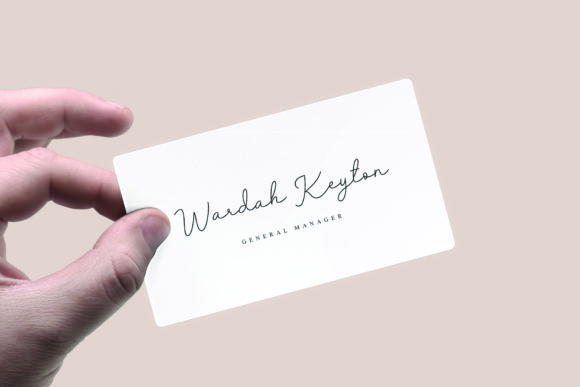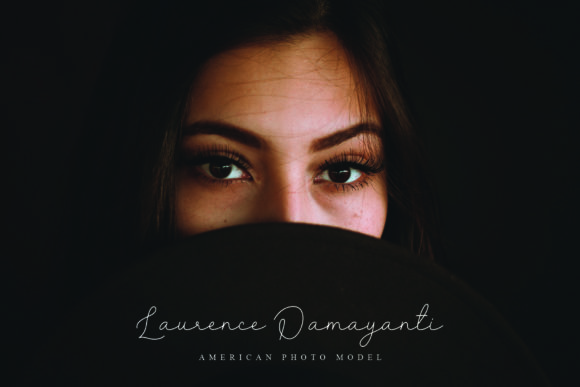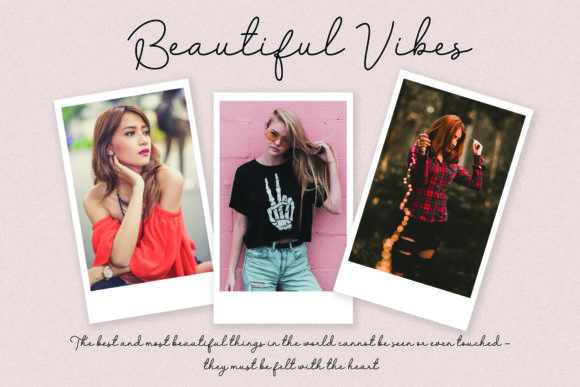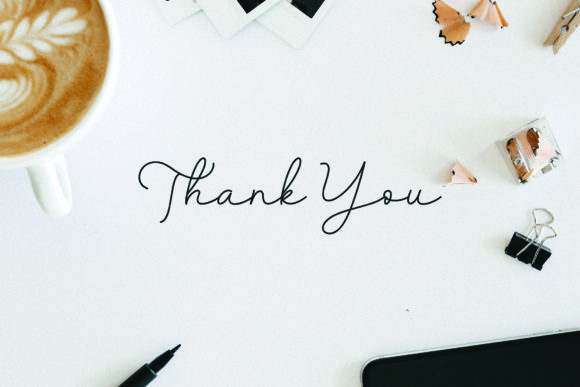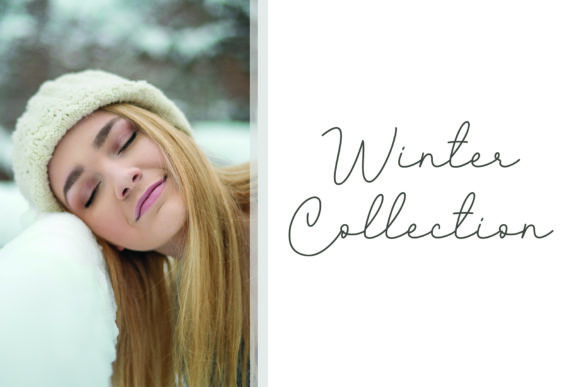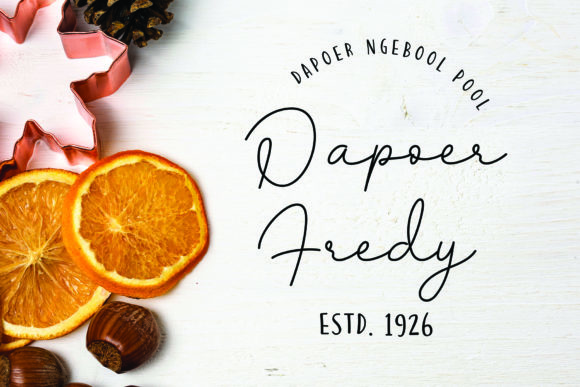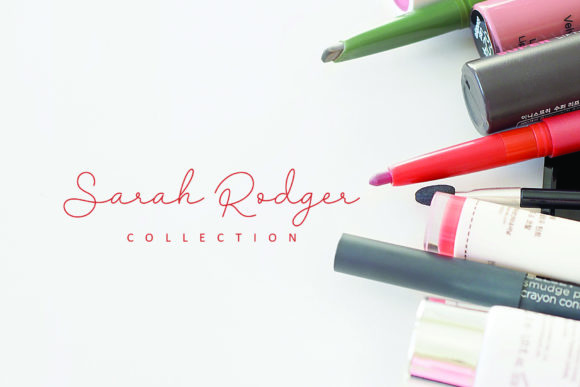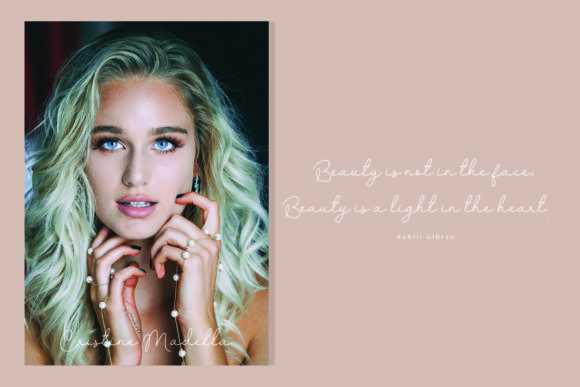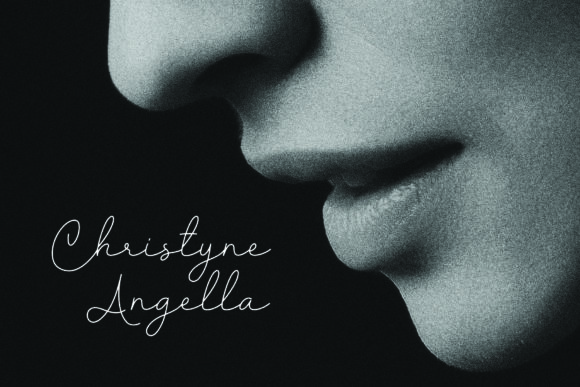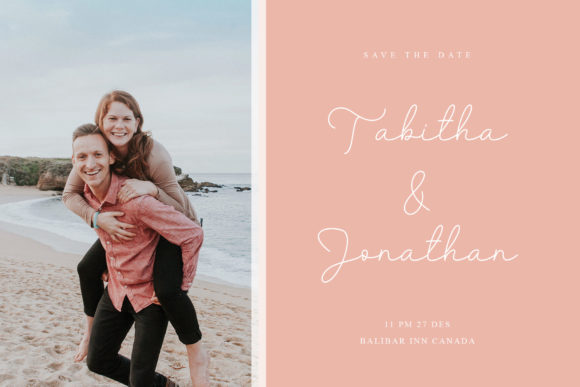
HomeScript FontsHimalaya Font Script Fonts Himalaya Font FacebookXPinterestWhatsApp Himalaya Font Poster 2 Himalaya Font Poster 3 Himalaya Font Poster 4 Himalaya Font Poster 5 Himalaya Font Poster 6 Himalaya Font Poster 7 Himalaya Font Poster 8 Himalaya Font Poster 9 Himalaya Font Poster 10 Himalaya Font Poster 11 Himalaya Font Poster 12 Himalaya Font Poster 13 About Himalaya Font Himalaya is an extremely elegant script with a smooth approach to lettering. DOWNLOAD NOW People also explored Little Mermaid Monogram Font Hovalik Font Dandelion Font Rainbow Font Milk Candy Font Karepe Fx Font Cottage Urban Streets Flyer and Poster Mock-ups Bugan Script Font 403 0 TagsHimalaya Font Previous articleSweet Heart FontNext articleKuproy Font LEAVE A REPLY Cancel reply Comment: Please enter your comment! Name:* Please enter your name here Email:* You have entered an incorrect email address! Please enter your email address here Website: Save my name, email, and website in this browser for the next time I comment. Personal Use Free Bolt Electric Personal Use Free Read more about this font Jellia Personal Use Free Read more about this font Coffete Personal Use Free Read more about this font Mika Personal Use Free Read more about this font BLOG To increase your work productivity, choose the most readable fonts. In today's fast-paced work environment, where digital communication and information consumption are integral to our daily routines, the choice of fonts can significantly impact... Free vs Paid Fonts: Why Investing in Premium Fonts Is Worth It Best Fonts for T-Shirt Design – Top 2025 Picks Modern Sans-Serif Fonts That Brands Love in 2025